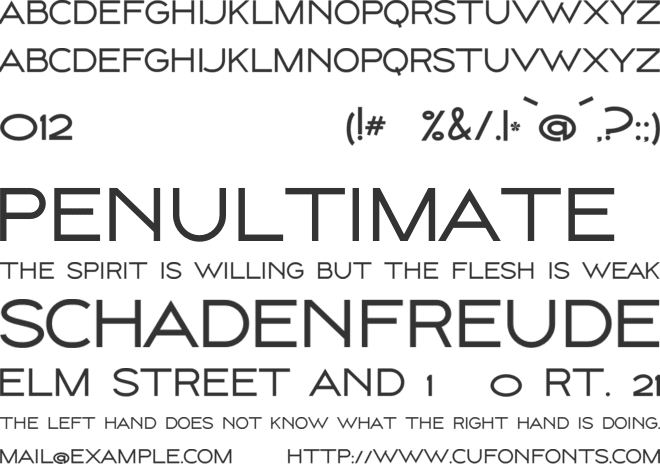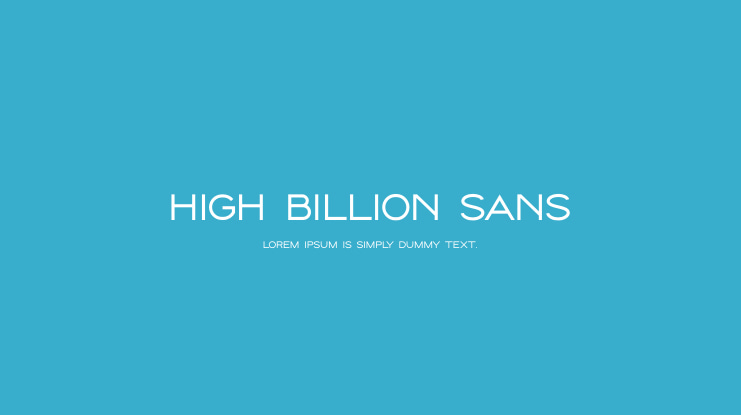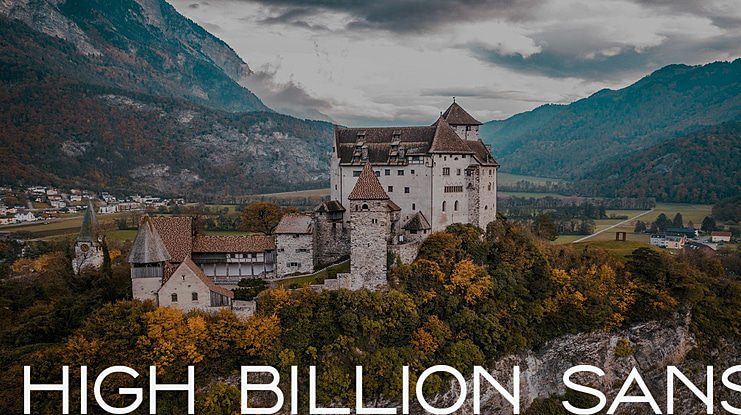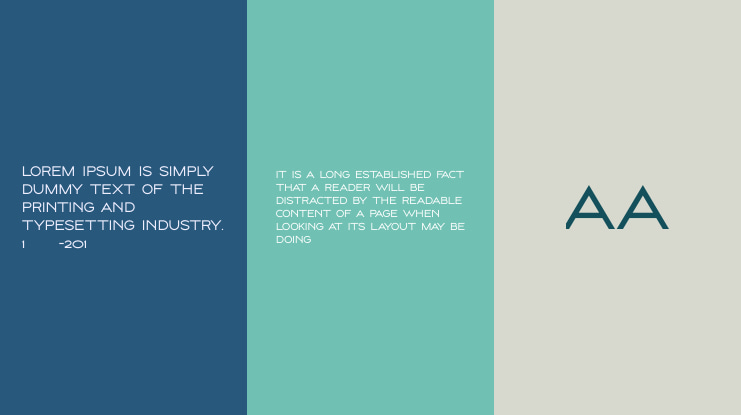
High Billion Sans Font
Introduce Excellent modern San-Serif font in High Billion Sans the stylish modern fonts. This is perfect for branding, wedding invites and cards, and more option for your requirement in Personal Use only.
High Billion font styles elegant with all uppercase letters for sans serif.
Numerals, a large range of punctuation.